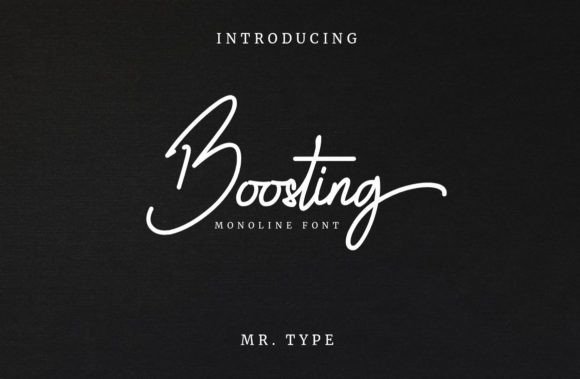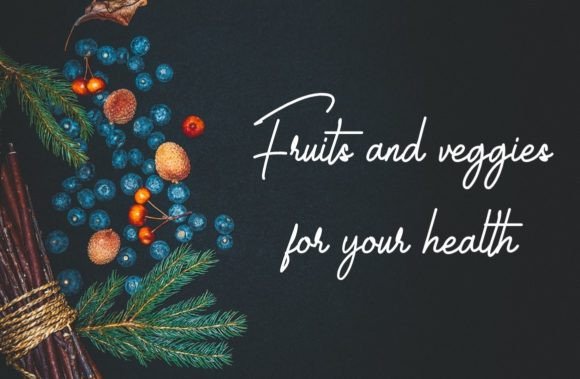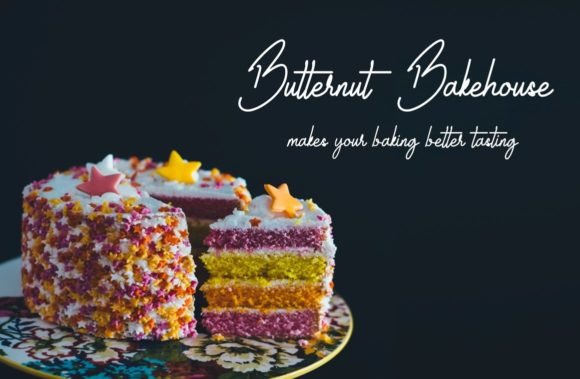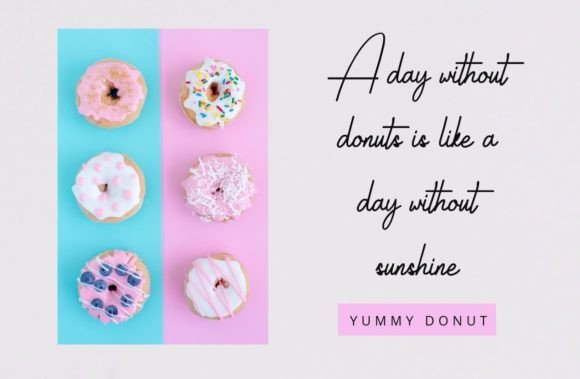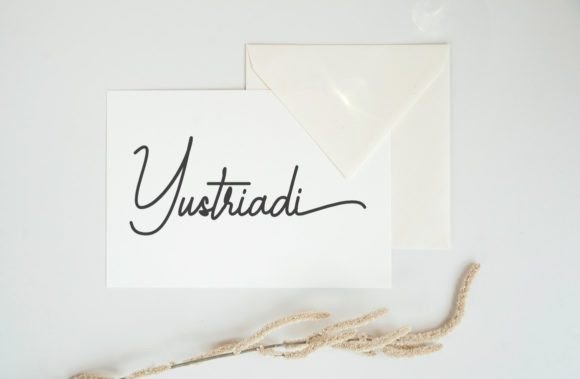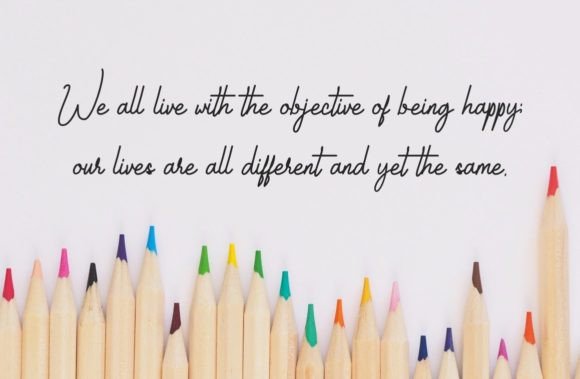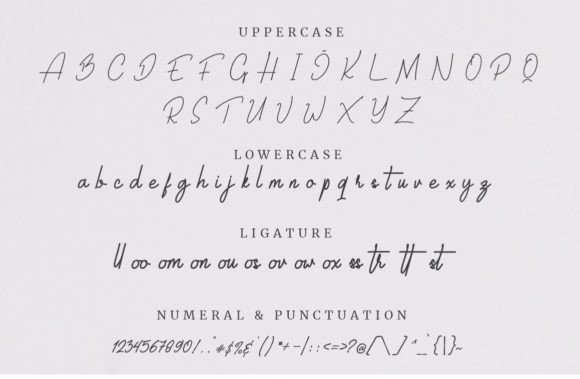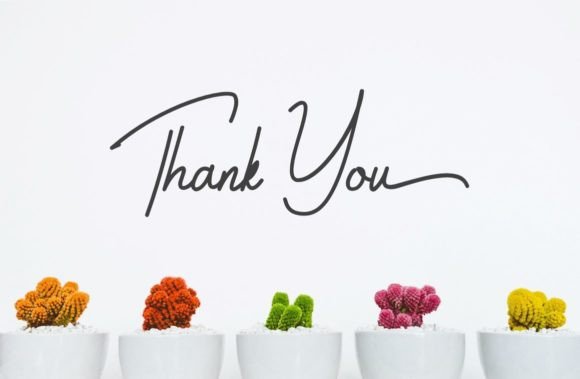
Boosting Font
About Boosting Font
**Boosting: An Elegant and Dainty Handwritten Font**
*Boosting* is a beautifully crafted handwritten font that exudes elegance and delicacy. What sets this font apart are the sweet and delicate swashes that adorn its characters, giving it an original and enchanting look. *Boosting* is the perfect choice for a wide range of creative projects, from letterheads and titles to stationery and beyond.
The key feature of *Boosting* is its elegant and dainty design. The font’s letterforms are meticulously crafted, with a focus on maintaining a sense of grace and refinement. This attention to detail results in a script font that is not only visually pleasing but also versatile enough to adapt to various design applications.
One of the standout elements of *Boosting* is its delicate swashes. These intricate and artful additions to the characters lend an air of sophistication and originality to the font. The swashes enhance the overall aesthetic, making *Boosting* perfect for projects that demand a touch of elegance and uniqueness.
*Boosting* excels in conveying a sense of sophistication and charm. Its graceful and flowing script adds a touch of romance and timelessness to any design. This makes it particularly suitable for projects that require a refined and elegant look, such as wedding invitations, formal event stationery, or upscale branding.
In wedding stationery, *Boosting* shines. Its delicate swashes and graceful letterforms create a sense of romance and elegance that sets the perfect tone for a memorable event. Your wedding invitations, place cards, and thank-you notes will all benefit from the touch of sophistication that *Boosting* brings.
For branding and logo design, *Boosting* adds a sense of refinement and uniqueness. Its elegant and original style ensures that your logo will stand out and leave a lasting impression on your audience. Whether you’re branding a boutique, a high-end product, or a luxury service, this font has the versatility to convey your brand’s elegance.
In crafting, *Boosting* can be used to add a touch of sophistication to homemade cards, scrapbooking projects, or any DIY creations. Its delicate swashes make it ideal for adding personalized touches to your crafts, making them truly one-of-a-kind.
In summary, *Boosting* is an elegant and dainty handwritten font with sweet and delicate swashes. Its original and enchanting look makes it a valuable addition to your font library. Whether you’re working on wedding stationery, branding, crafting, or other creative projects, *Boosting* promises to bring a sense of sophistication and charm to your designs, leaving a lasting impression on your audience.